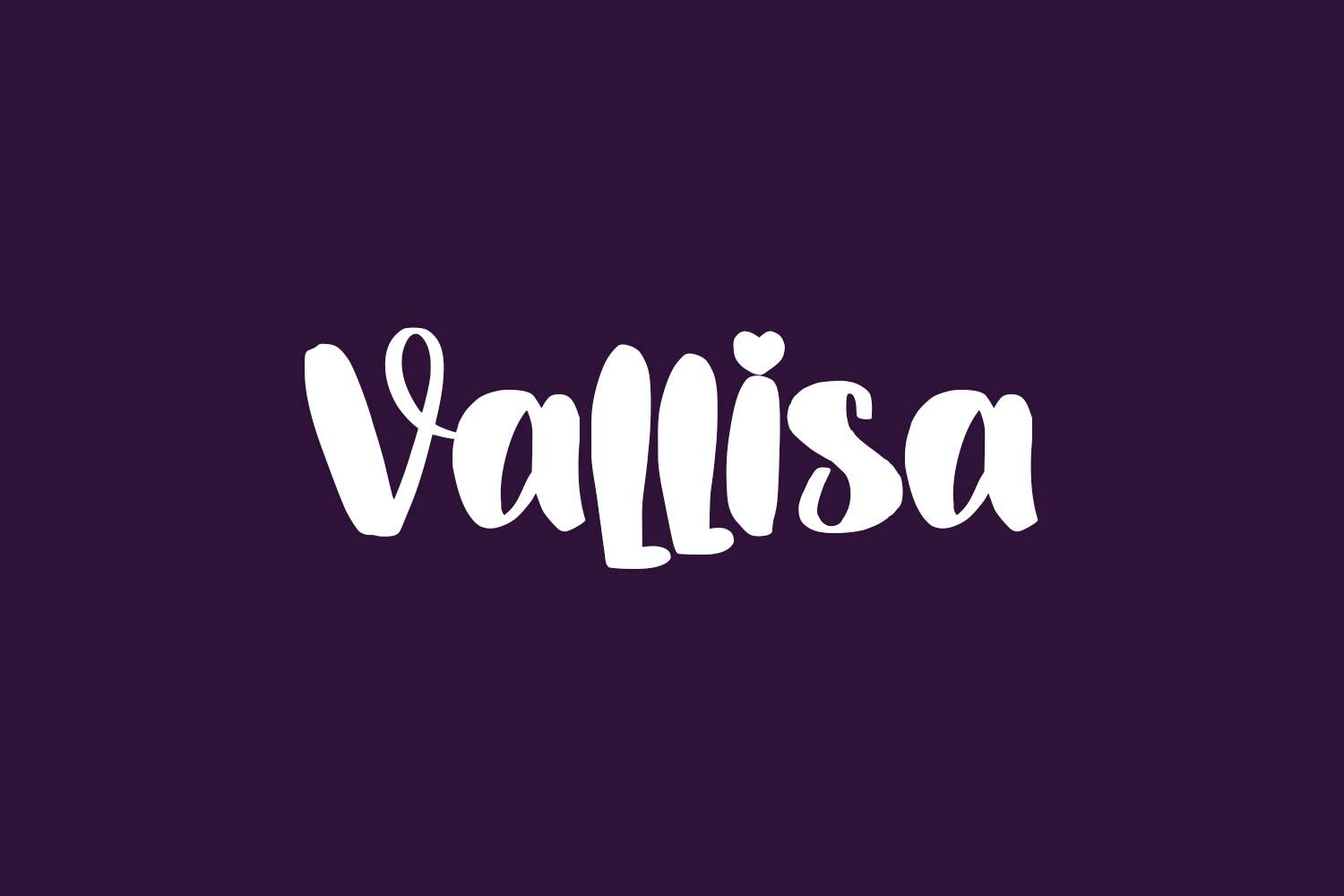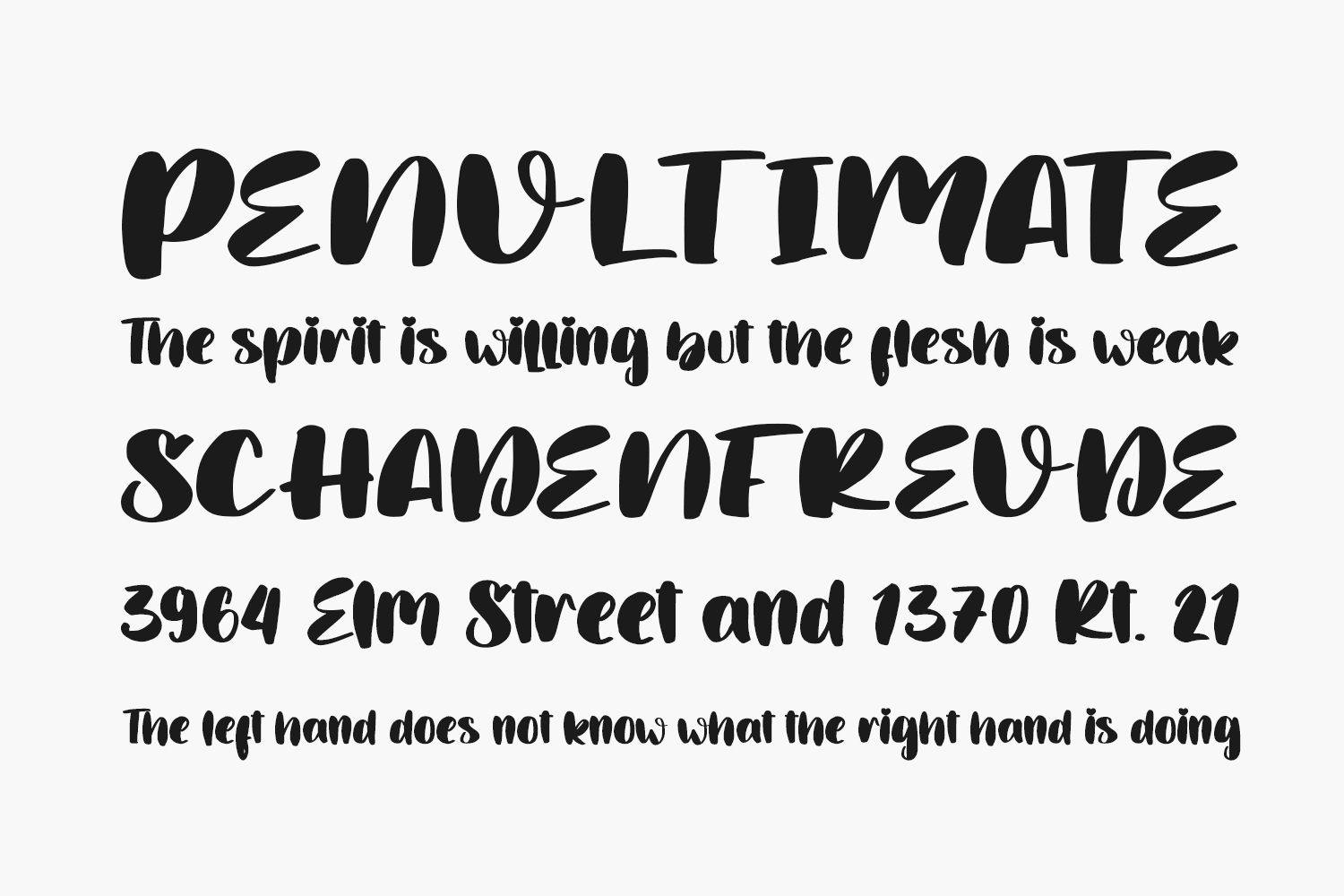
Vallisa Free Font is a stylish and lively handwritten font designed to evoke an exceptionally welcoming atmosphere. Elevate your creative concepts to true masterpieces with the friendly essence of this font. Vallisa Free Font is free for personal use only. Please purchase the full version for commercial use.
Designed by Letterara